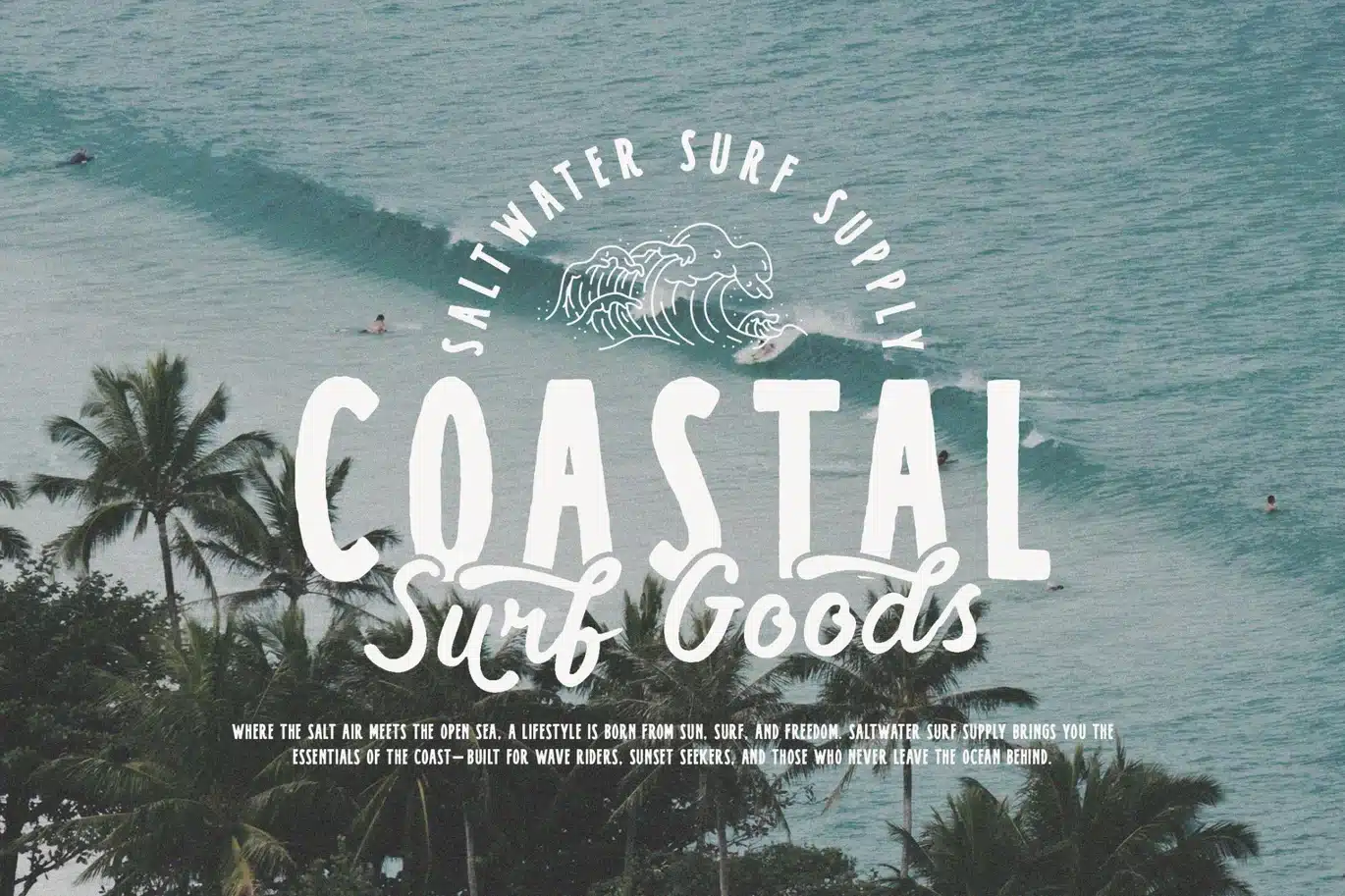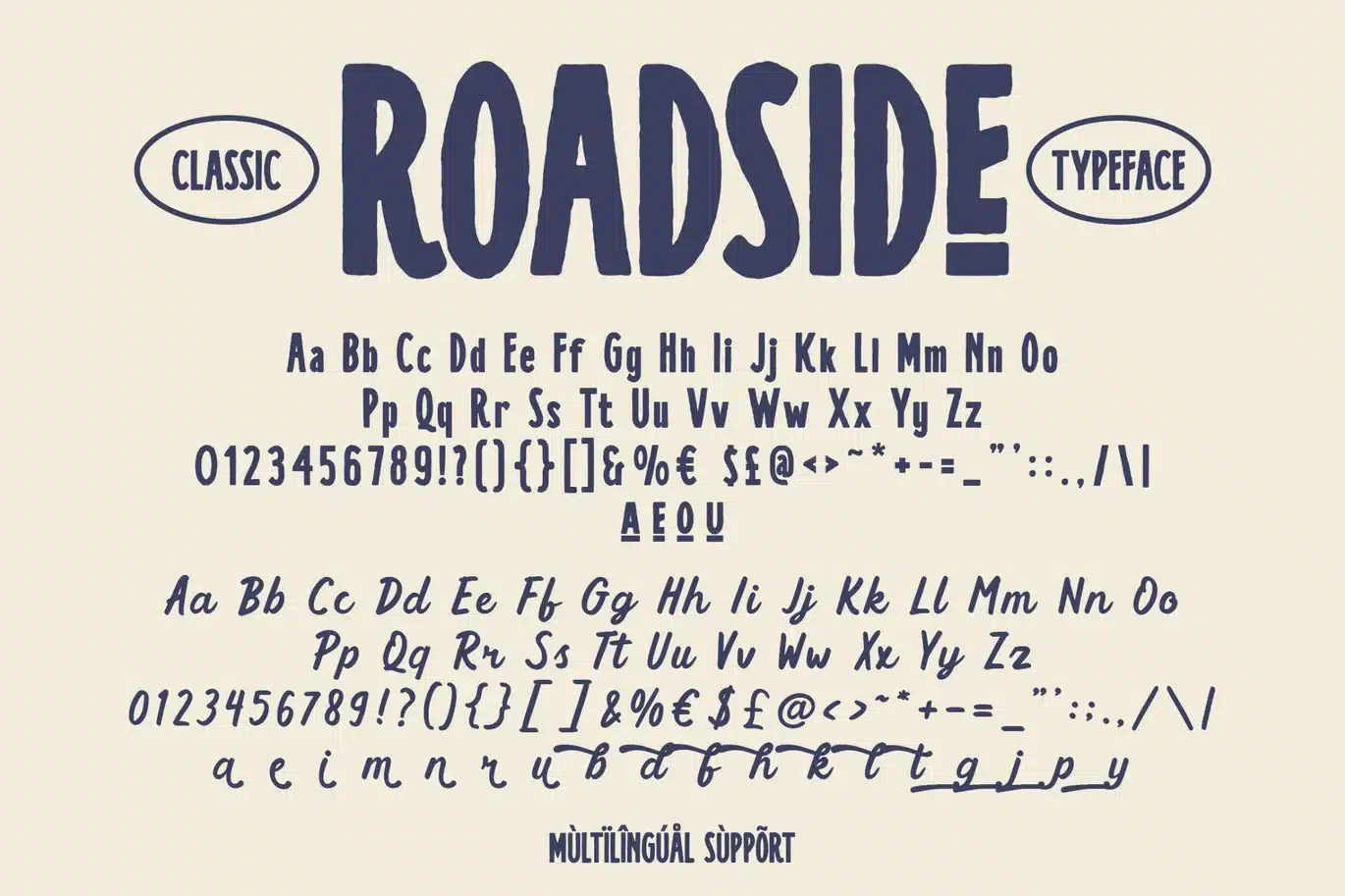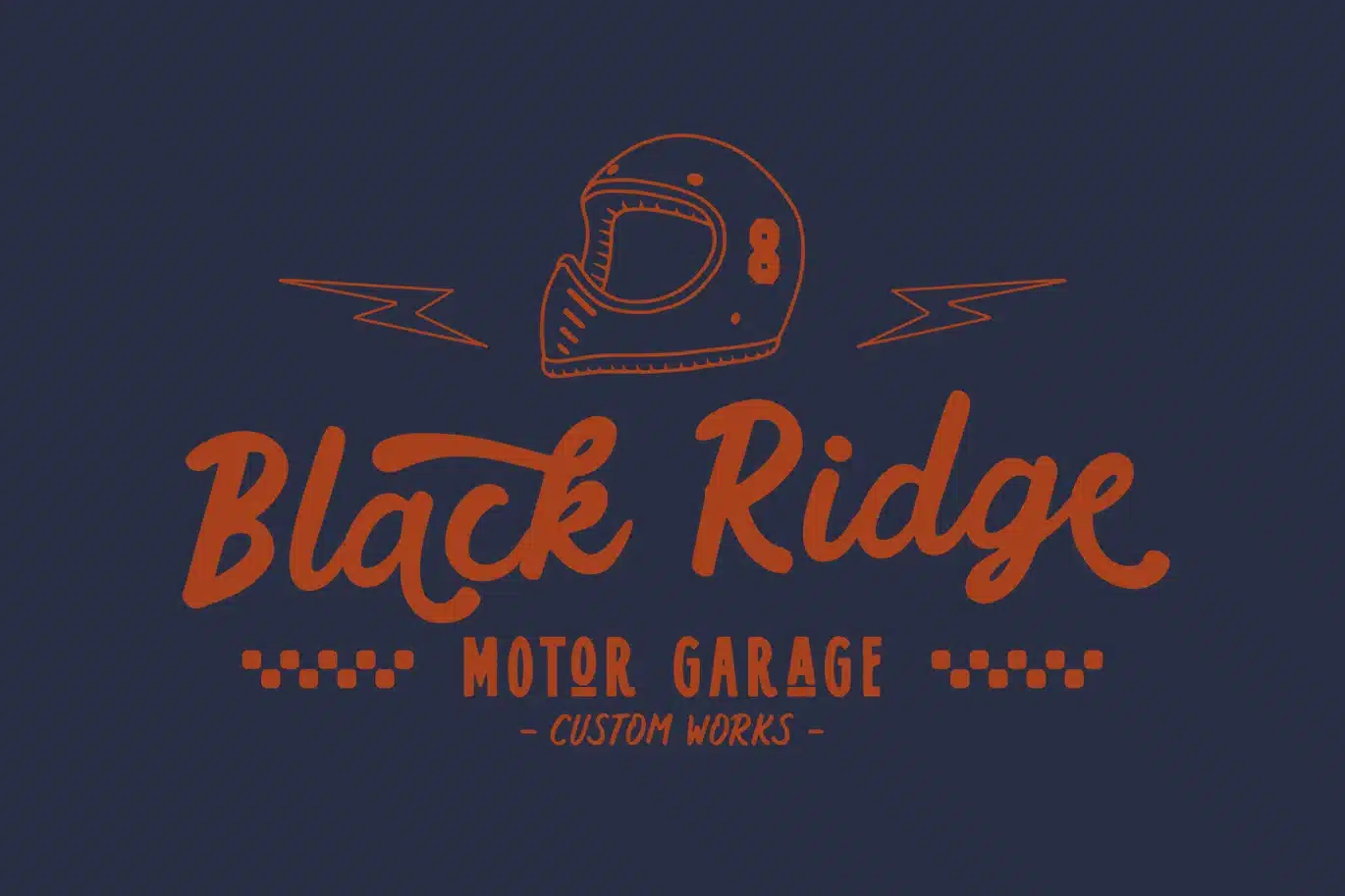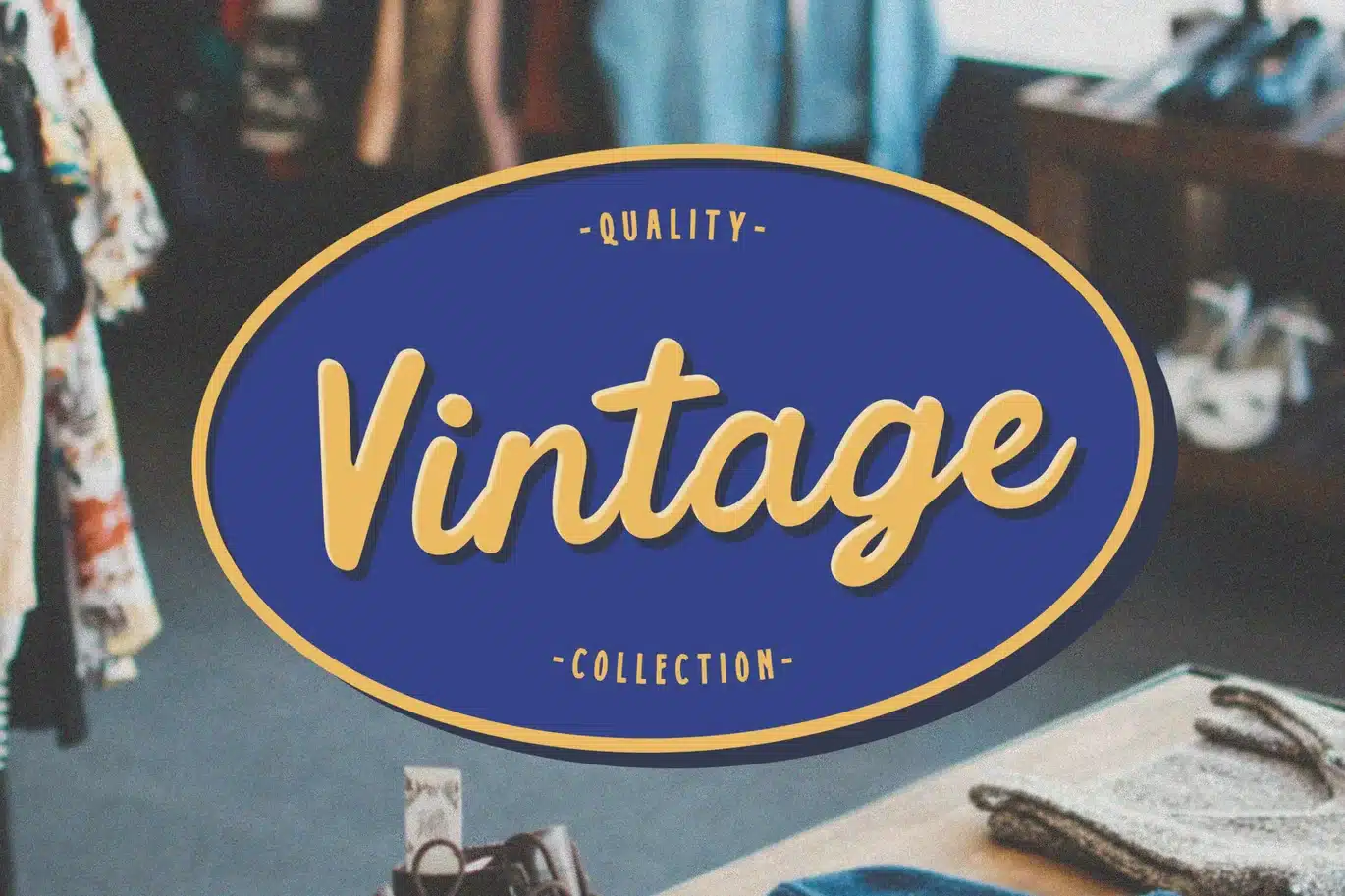
Roadside Duo – Sans & Script Font
Roadside is a modern sans & script font duo designed to bring a perfect balance of clean professionalism and natural handwritten style. Combining a sleek sans serif with a smooth and expressive script, it is ideal for branding, logos, packaging, social media, invitations, and editorial designs. The contrast between structured and flowing letterforms creates a versatile and visually appealing combination for both modern and creative projects. With ligatures, alternates, and multilingual support, Roadside allows you to craft unique and stylish typography effortlessly.
- Sans & Script Duo – Clean sans paired with elegant script
- Ligatures & Alternates – Enhanced typographic flexibility
- Multilingual Support – Supports multiple languages